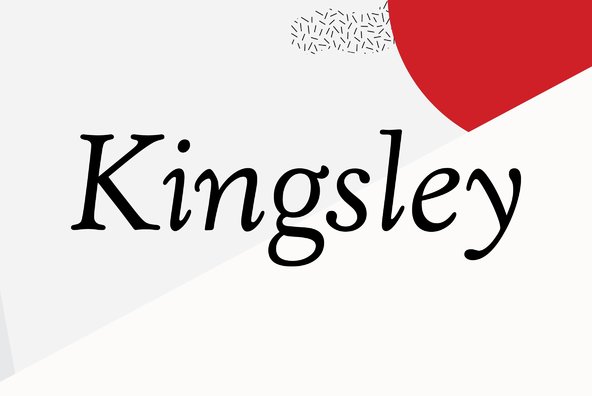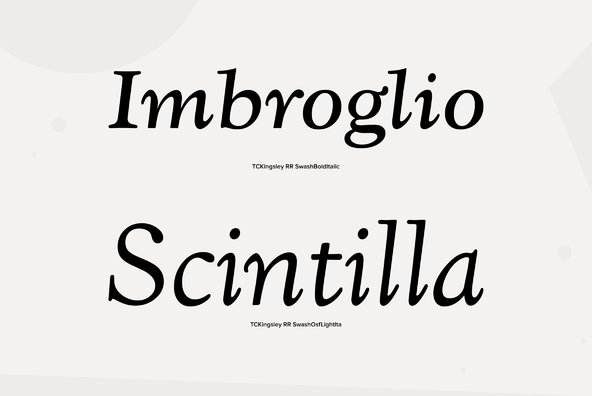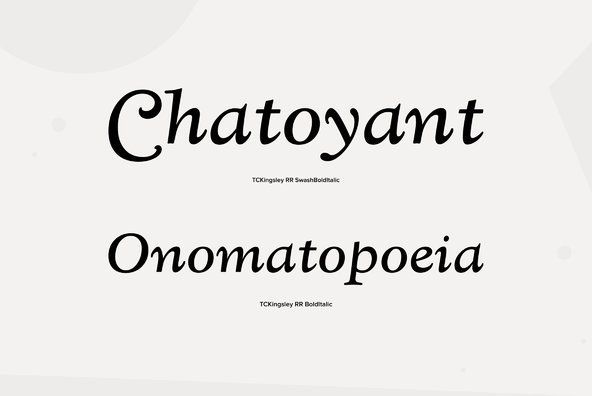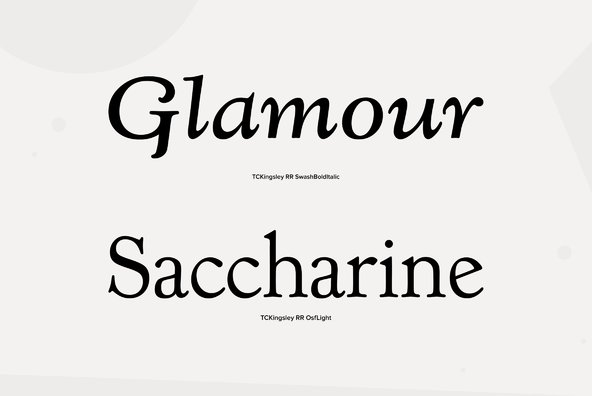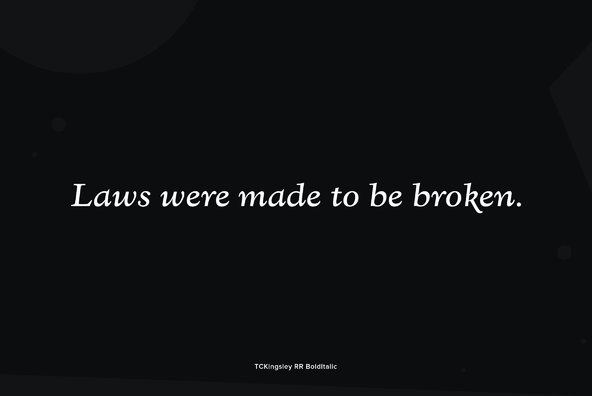
Kingsley
Designed by Les Usherwood. Digitally engineered by Steve Jackaman. This beautiful recreation by Les of the Frederick Goudy typeface, Kennerley Old Style, circa 1911-24, may be superior to any other.